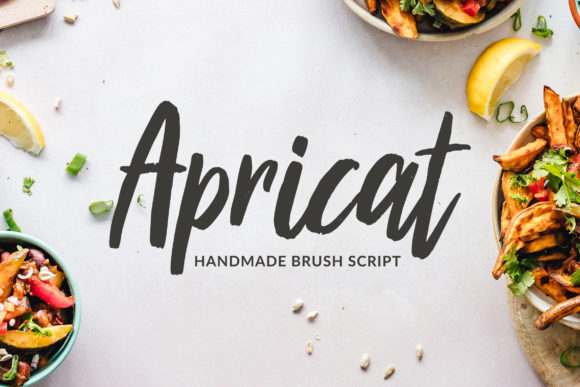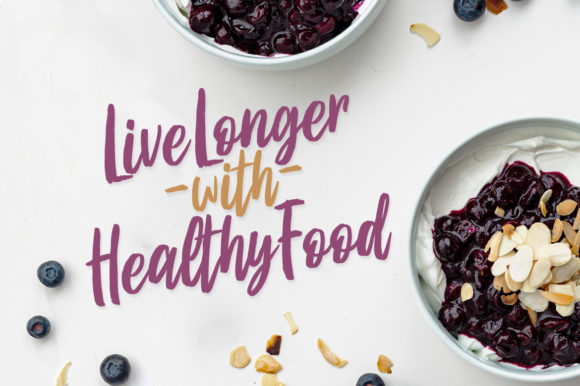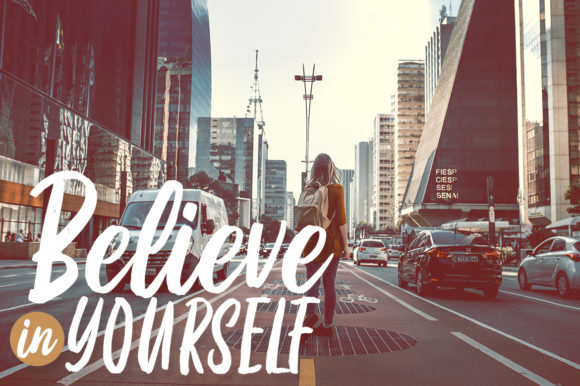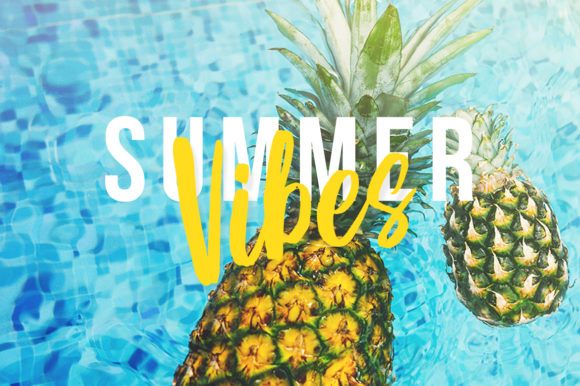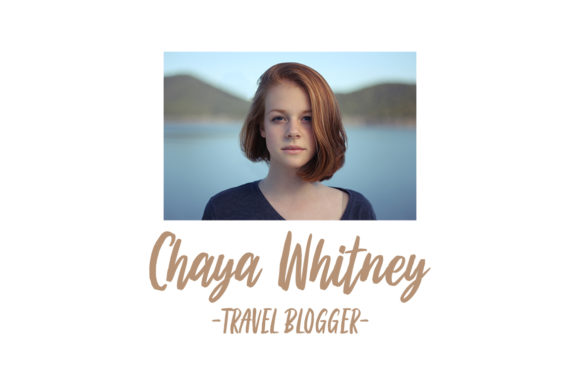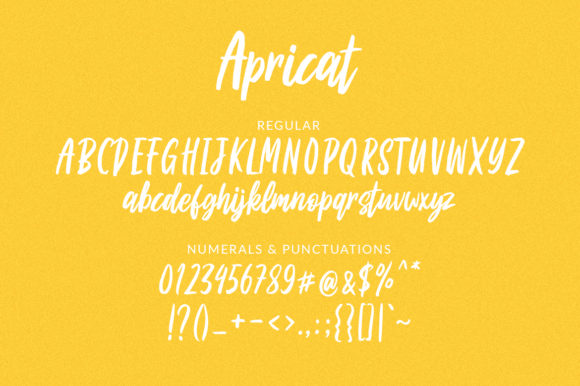
Apricat Font
About Apricat Font
Apricat features naturally beautiful dry brush strokes, making it the ideal font for adding an authentic touch to any design!